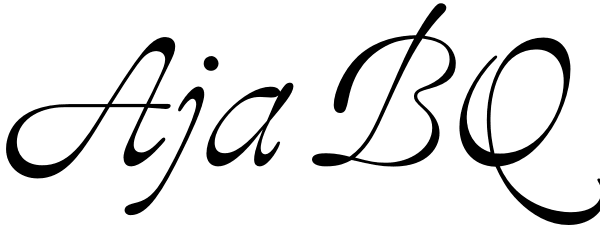
Aja BQ
Aja is a more casual script designed for Berthold by German typographer Gustav Jaeger in 1981. This package includes Poppl Exquisit, a formal script designed by German graphic designer and professor Friedrich Poppl in 1970.
Aja BQ Font